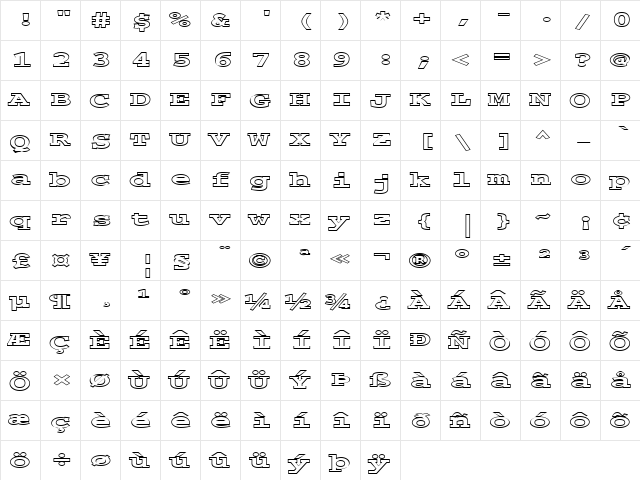
FZ BASIC 54 HOLLOW EX Bold Font Preview
FZ BASIC 54 HOLLOW EX Bold
FZ BASIC 54 HOLLOW EX Bold Font Details
Design Context for FZ BASIC 54 HOLLOW EX Typeface
FZ BASIC 54 HOLLOW EX takes a measured approach to typography — its balanced proportions and neutral character make it a reliable workhorse for both digital and print work. The heavy weight commands attention and anchors typographic hierarchies.